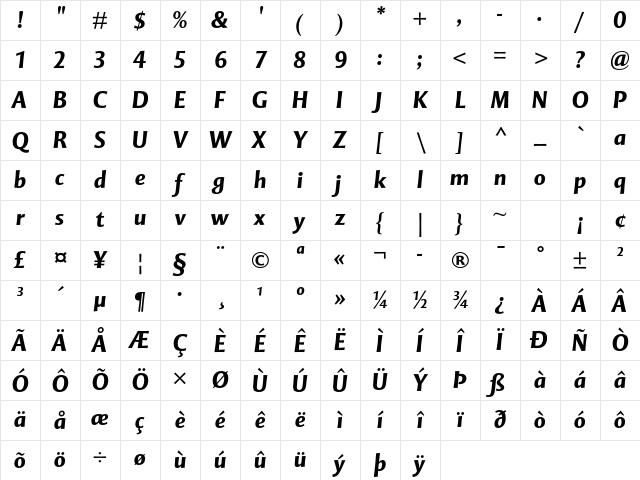
Mentor Sans Std Bold Italic
Designer: Michael Harvey and Andy Benedek
Design Context for Mentor Sans Std
Mentor Sans Std is a composed and adaptable typeface that performs quietly and consistently across a wide range of design contexts. The slanted form adds forward momentum and visual energy. Its bold stroke weight gives it real presence on the page.